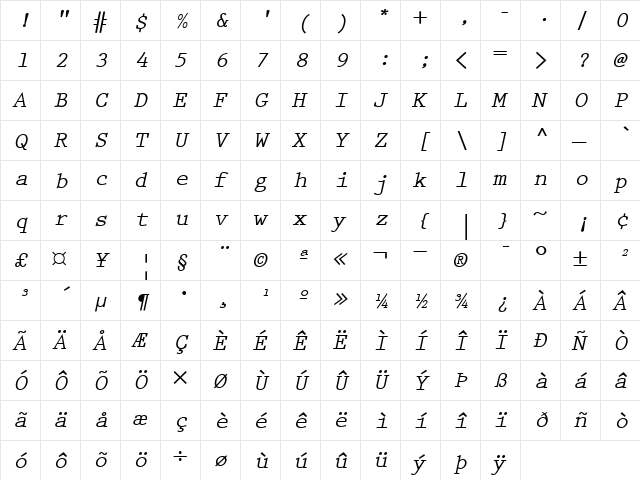
PrestigeEliteSlanted BoldItalic Font Preview
Design Context for PrestigeEliteSlanted Typeface
PrestigeEliteSlanted takes a measured approach to typography — its balanced proportions and neutral character make it a reliable workhorse for both digital and print work. Its italic angle brings a sense of urgency and motion to the letterforms. The heavy weight commands attention and anchors typographic hierarchies.
Pro Tip: Try PrestigeEliteSlanted for annotation and caption copy alongside an upright companion — the contrast in angle creates a dynamic but ordered typographic system.